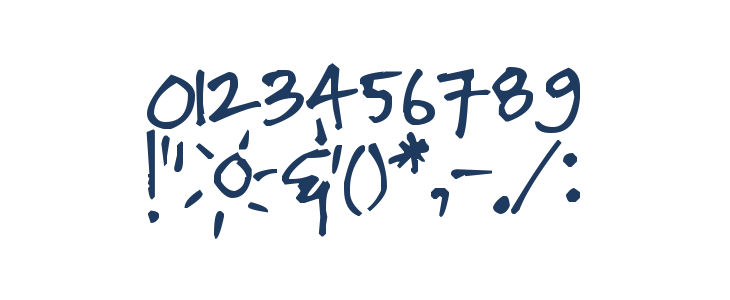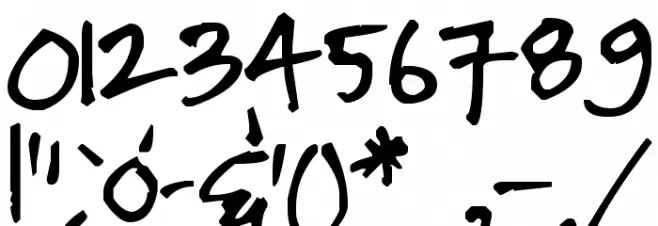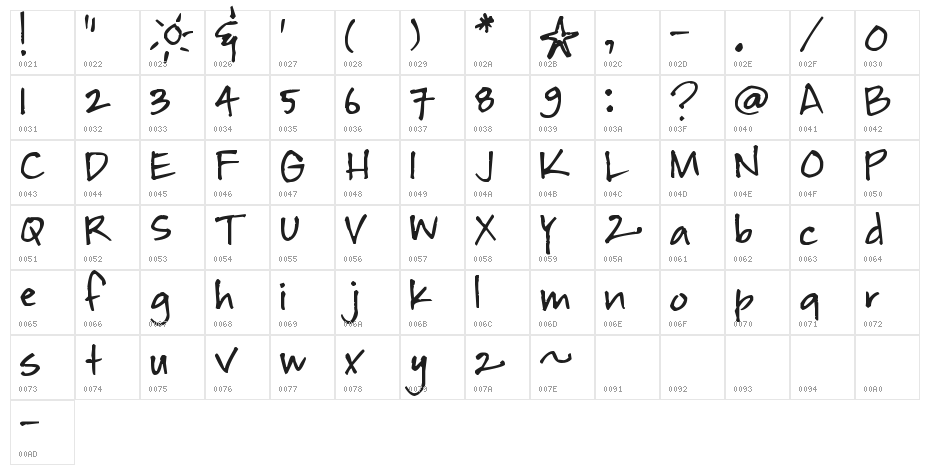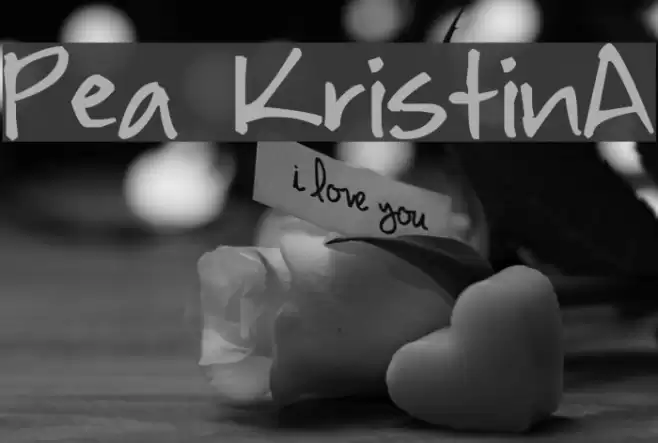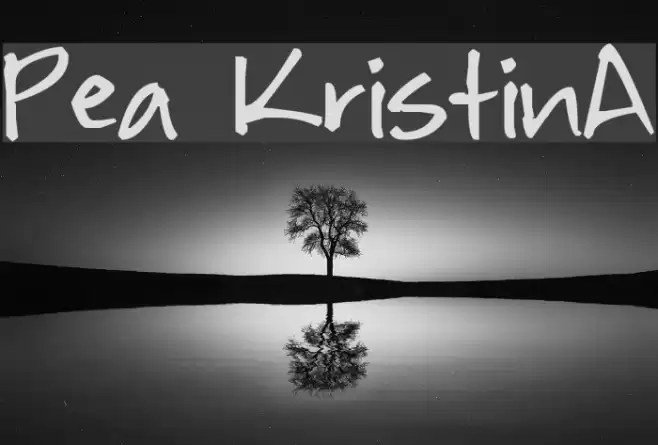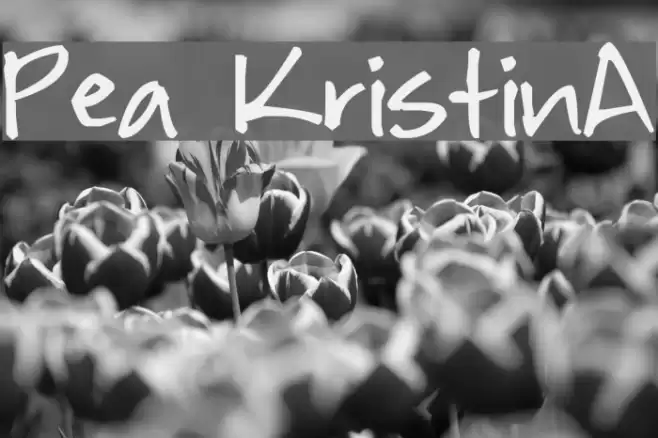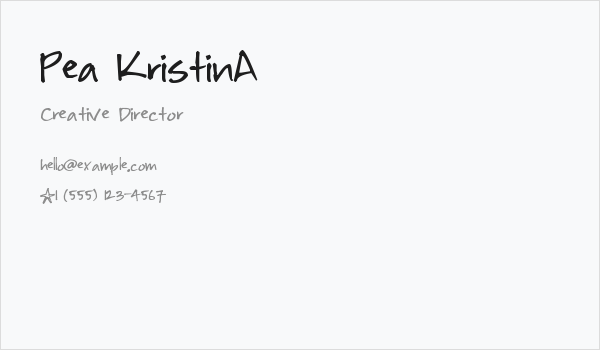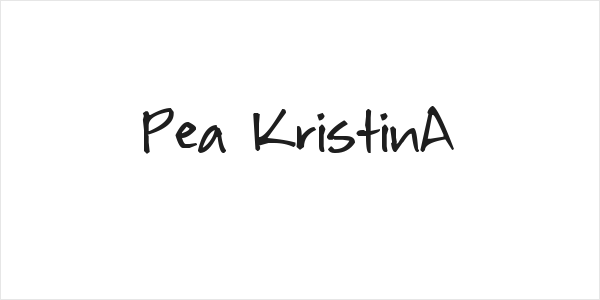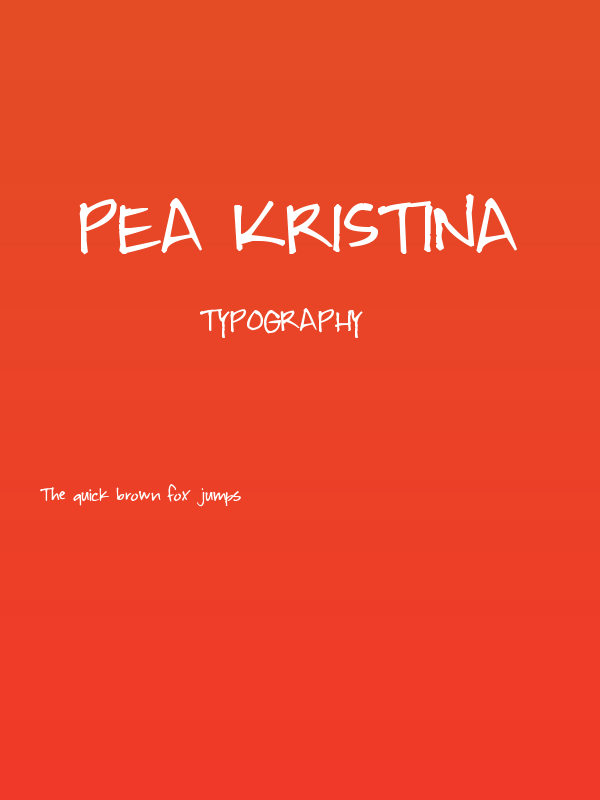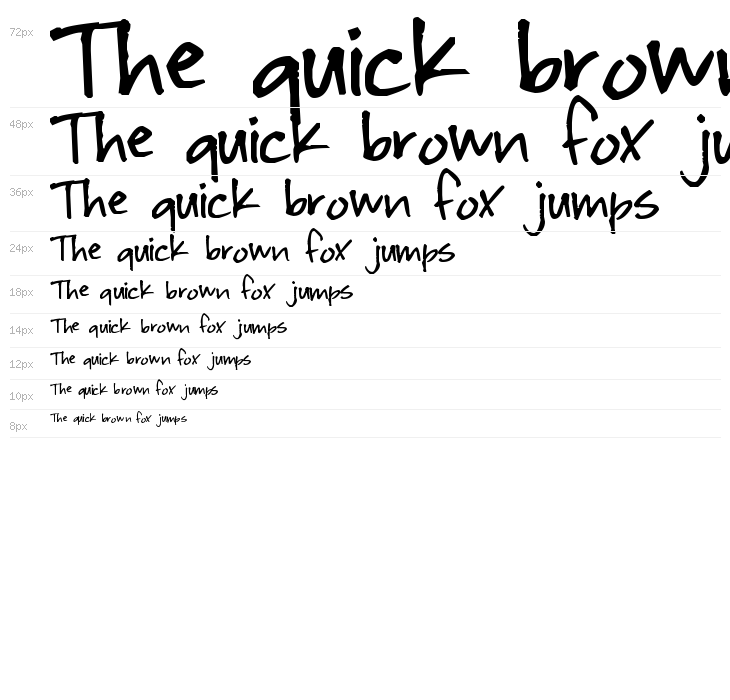
Pea KristinA Font
Pea KristinA Description
This font exudes a playful and casual handwritten style, characterized by its irregular strokes and informal appearance. The letters are slightly slanted, giving it a dynamic and lively feel. The uppercase and lowercase letters maintain a consistent style, with rounded edges and varying stroke widths that add to its charm. The numbers and special characters follow the same whimsical design, making it suitable for projects that require a personal touch. Its overall appearance is friendly and approachable, perfect for conveying warmth and creativity.
| Proposed Projects | Ideal for greeting cards, personal notes, children's books, and creative branding projects. |